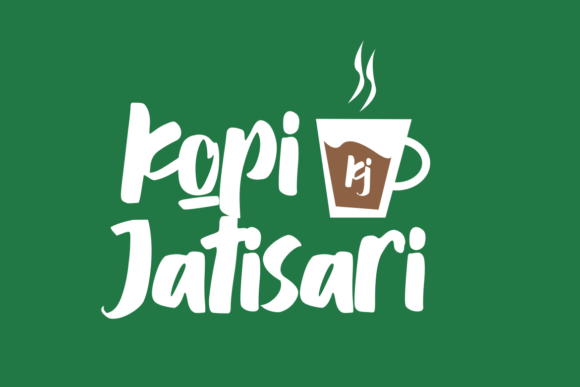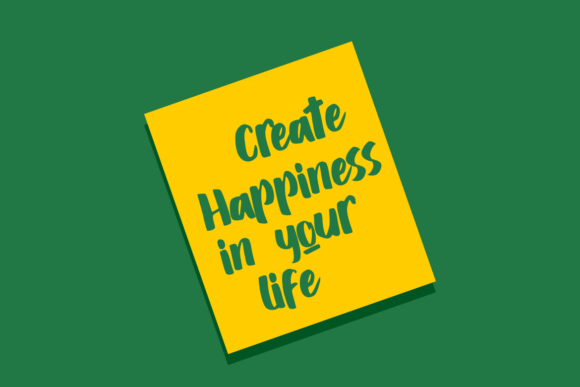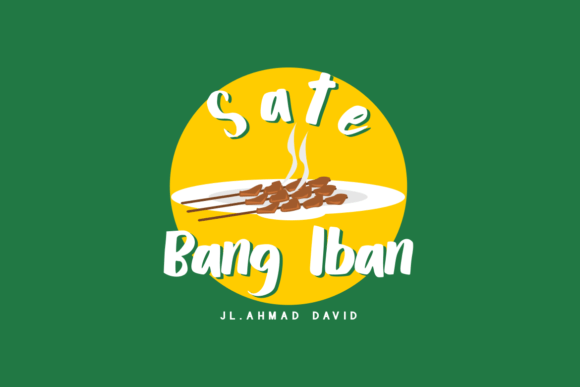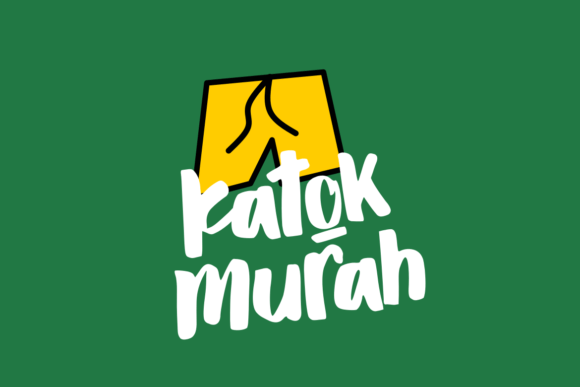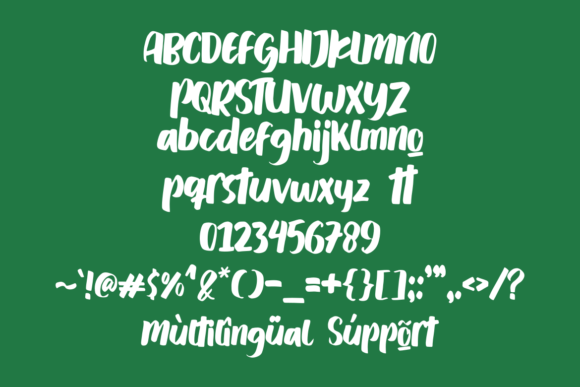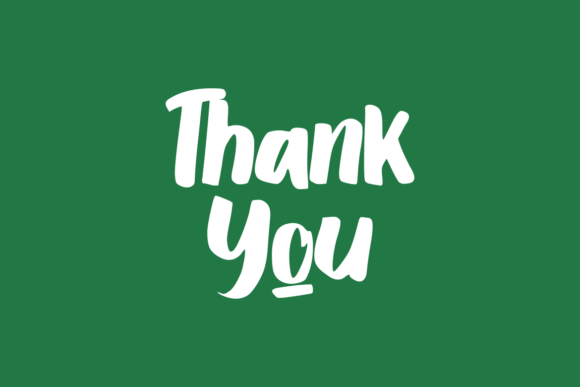
Unleash Your Creativity with Batok Galeng Font
Have you ever stared at a blank canvas, trying to bring your artistic vision to life? The spark of inspiration is there, but the right tools are missing. That’s where the perfect font can make all the difference. Enter the Batok Galeng Font, a stylish handwritten font that’s sure to elevate your designs.
Batok Galeng Font is a versatile tool designed to help you create unique and captivating designs. Whether you’re working on a logo, poster, or social media graphic, this font adds a touch of personality and sophistication. Its value lies in its ability to convey emotion and style, making it a valuable addition to any designer’s toolkit.
With Batok Galeng Font, the possibilities are endless. Add it to your fonts library and watch your creative projects come to life in a whole new way.
Batok Galeng Font Key Features
- Font Family: Batok Galeng is a typeface designed to evoke the spirit of traditional Indonesian typography, making it a unique choice for designers looking to add cultural flair to their projects.
- Character Set: The font includes a comprehensive character set, covering Latin, Cyrillic, and various non-Latin scripts, making it suitable for projects requiring multilingual support.
- Unique Characteristics: Batok Galeng’s distinctive design features a mix of traditional and modern elements, making it an ideal choice for designers seeking to create visually striking and culturally relevant projects.
Designer Review: Batok Galeng Font
Overall, I think Batok Galeng is a solid addition to any designer’s toolkit. Here are some things that work well:
- ✨ Unique, exotic feel: Batok Galeng’s letterforms evoke a sense of mystique and otherness, perfect for projects that need a touch of the unknown.
- ✨ Good legibility: Despite its exotic look, Batok Galeng is surprisingly easy to read, even at smaller font sizes.
- ✨ Versatility: Batok Galeng comes in a range of weights and styles, making it suitable for everything from headlines to body text.
Of course, no font is perfect, and Batok Galeng has some limitations:
- ⚠️ Limited language support: While Batok Galeng includes some diacritical marks and special characters, it’s not a true pan-global font.
- ⚠️ Not ideal for large blocks of text: Due to its unique feel, Batok Galeng can become overwhelming if used extensively.
Overall, I think Batok Galeng is a great choice for designers who want to add some visual interest to their projects without sacrificing legibility. Just be mindful of its limitations, and use it judiciously.
Batok Galeng font is ideal for use in creative and cultural projects, such as:
– Designing traditional Indonesian-inspired graphics and patterns.
– Creating typography for cultural festivals and events.
– Adding a unique touch to your personal branding and marketing materials.
Tips for Getting the Most Out of Batok Galeng Font
Here are some tips for getting the most out of Batok Galeng font:
– Experiment with different font sizes and colors to create a striking visual effect.
– Combine Batok Galeng with other fonts for a unique and interesting typography.
– Use Batok Galeng font for headings and titles to add a touch of cultural